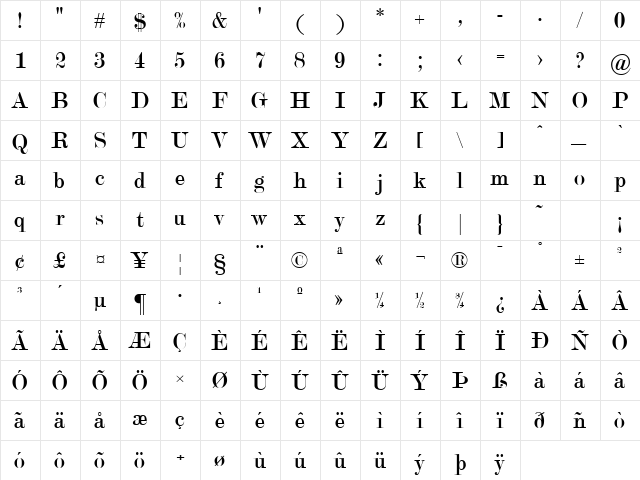
Modern No. 202 Regular Font Preview
Modern No. 202 Regular
Design Context for Modern No. 202 Typeface
Modern No. 202 offers clean, dependable letterforms without strong stylistic allegiance, making it a practical choice for designers who need flexibility.
Pro Tip: Use Modern No. 202 in both headline and body roles to test its range before committing to a single application.